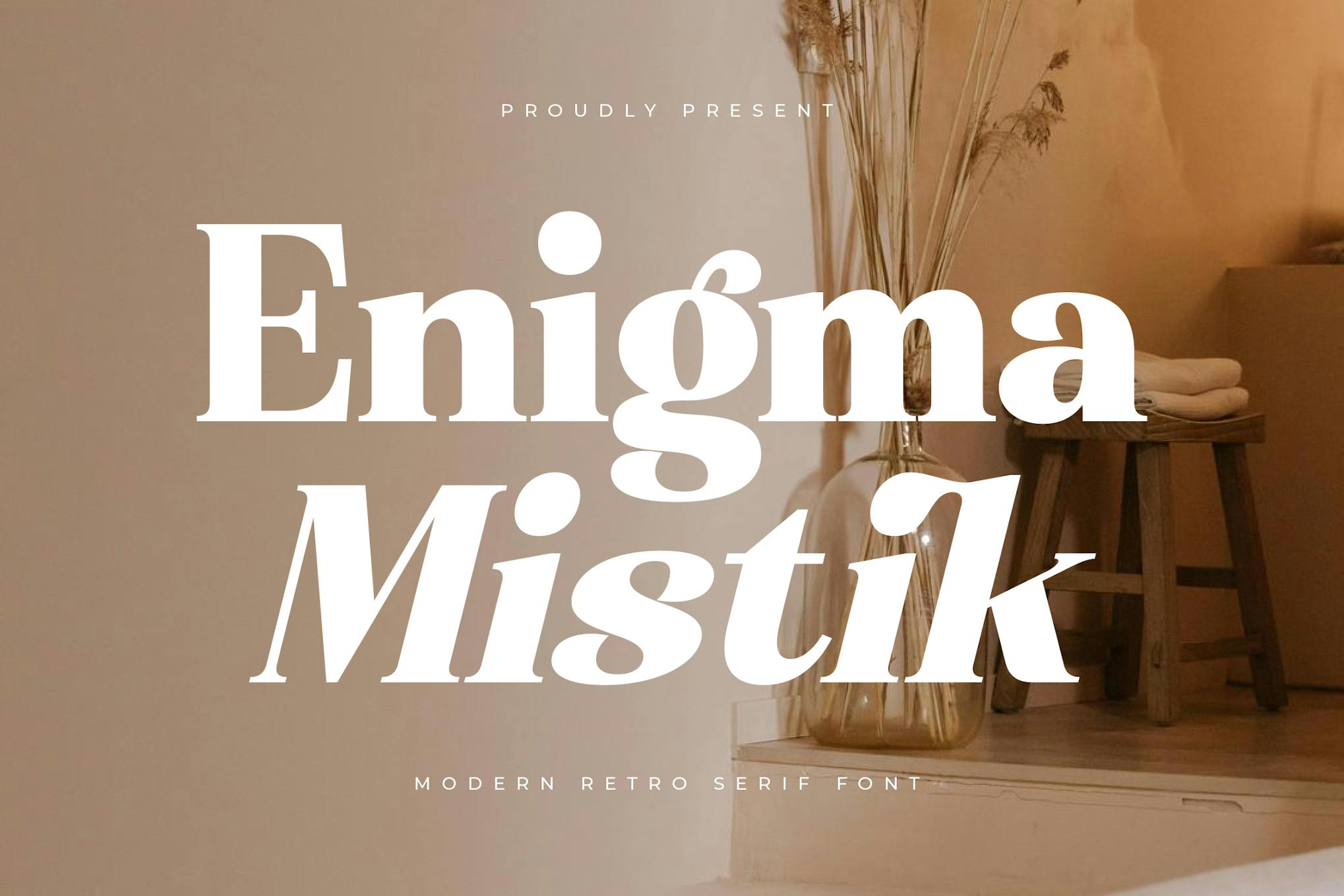
Enigma Mistik Modern Retro Serif Font is a versatile typeface designed to enhance various design projects. With its classic serif style and contemporary touches, it offers a perfect blend of nostalgia and modernity. Ideal for both print and digital applications, this font’s normal spacing and adaptability to any size make it an excellent choice for creating captivating and memorable text.